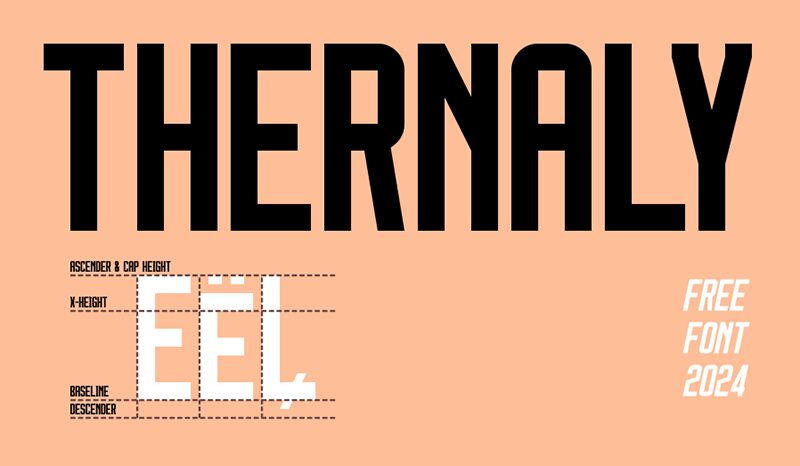
Thernaly font family is a free sans serif typeface by GGBotNet that presents clean, simple, and modern designs in every use. It comes in 2 font styles with designs that highlight its geometric character. Its smooth structure gives it a clear presentation that keeps the focus on the text while giving it an interesting twist for an assertive presence.
Versatile fonts like Thernaly have a place within every project and an ability to complement other fonts and typography designs, which means you can allow it to decorate your movie posters, advertisements, web designs, wallpaper artwork, or UX and UI designs. The professional font is also ideal for both electronic platforms like blogs and apps, and printed platforms like newspapers, books, and magazines. You can also create business cards and branding and packaging designs for services and products.